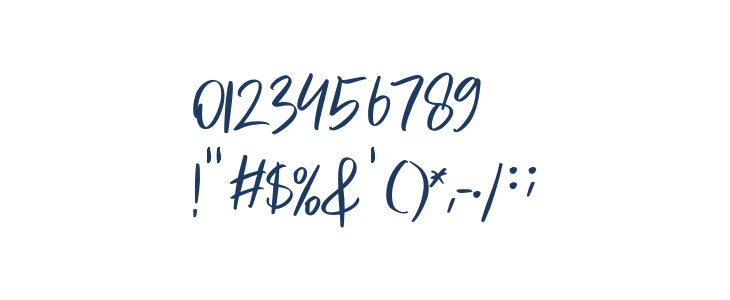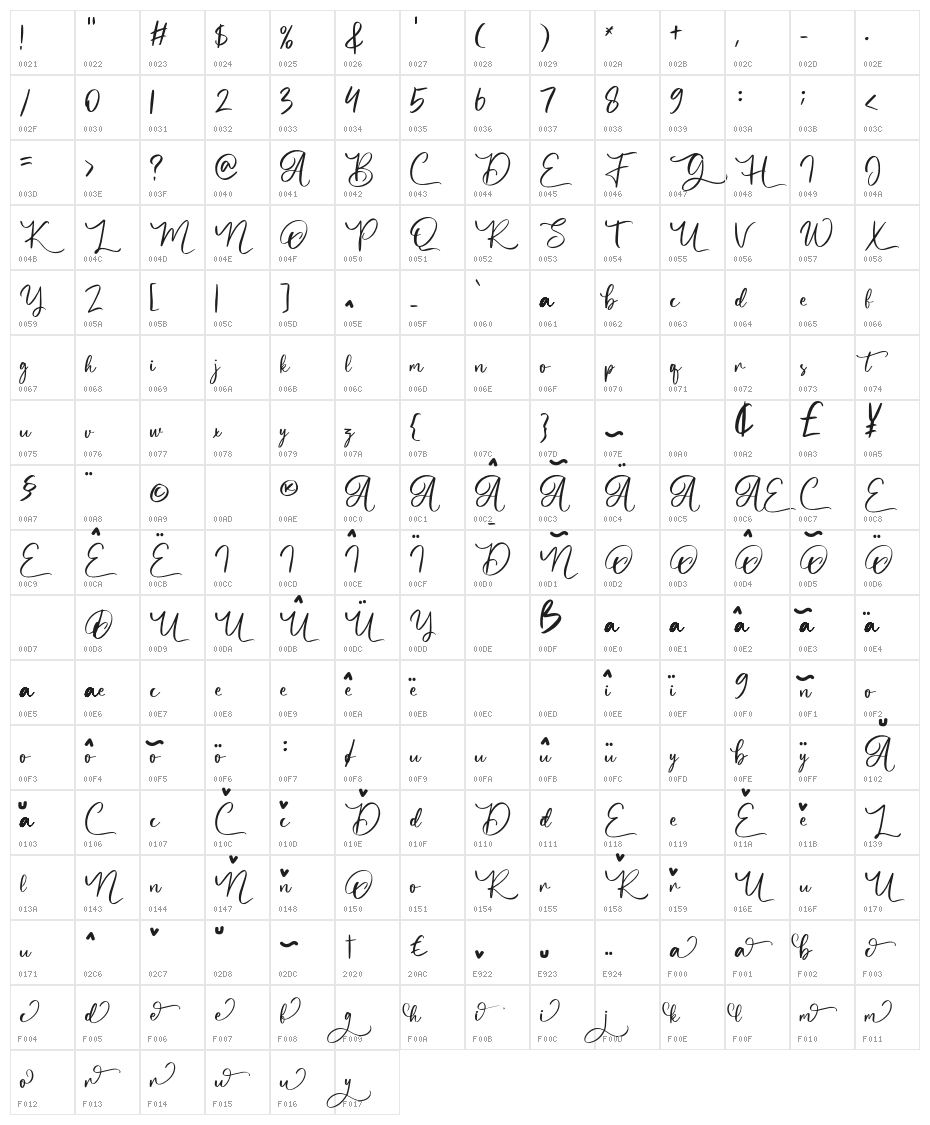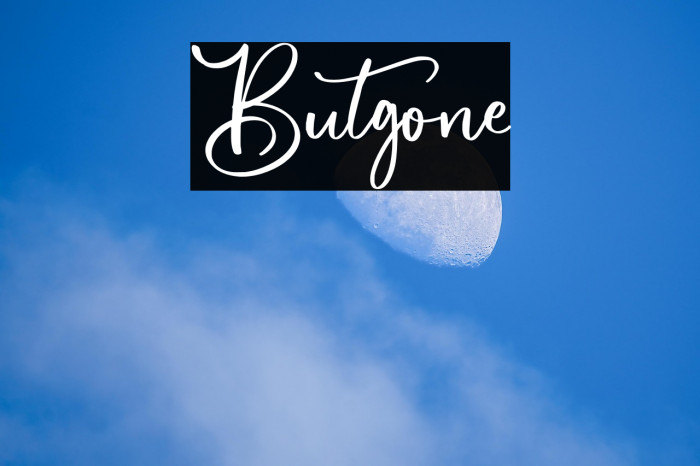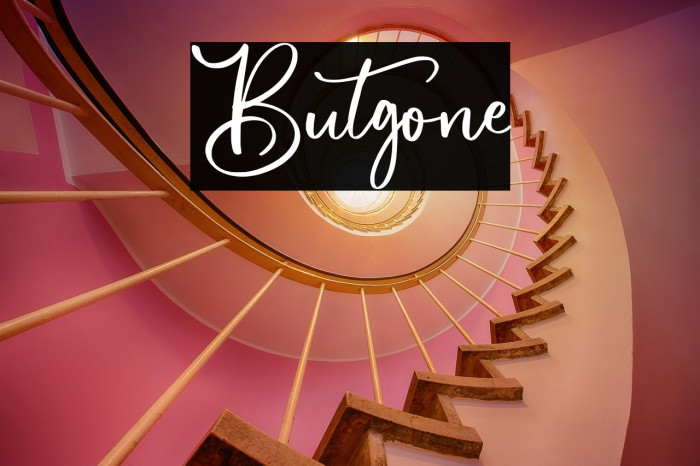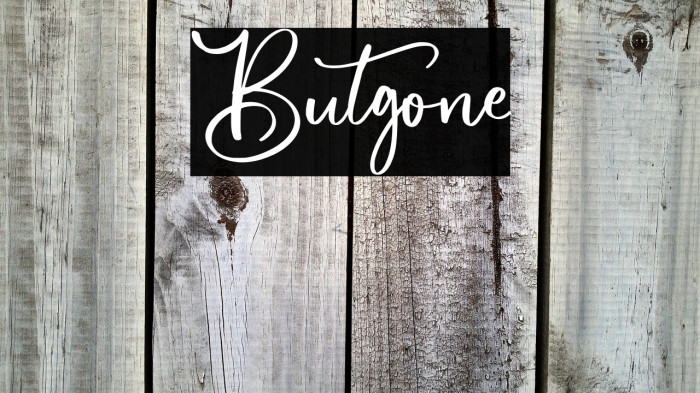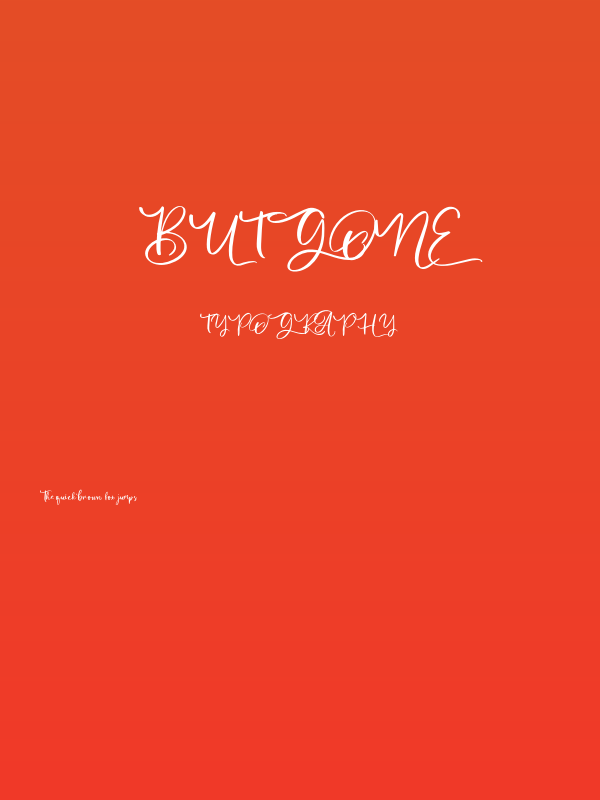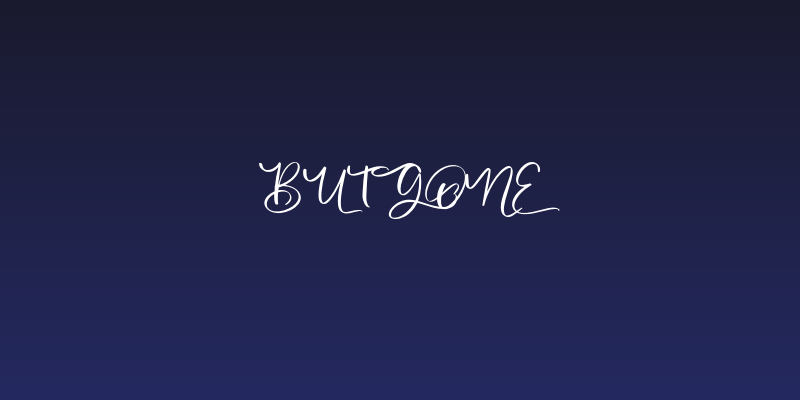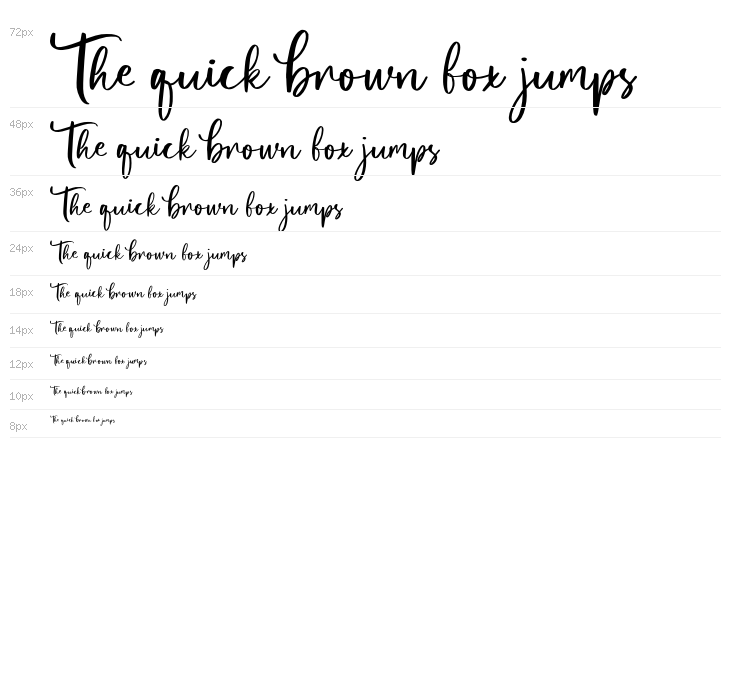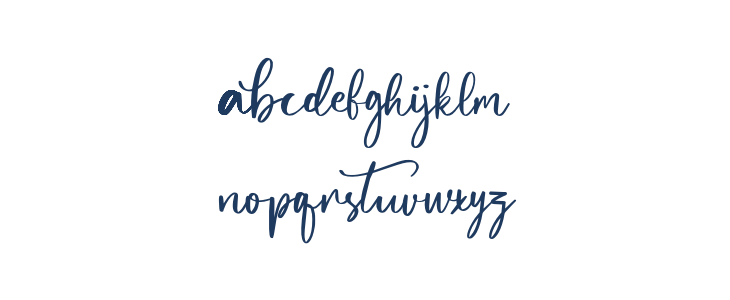
Butgone Font
Butgone Description
This font features an elegant and flowing script style, characterized by its smooth, cursive strokes and graceful curves. The uppercase letters are particularly ornate, with intricate loops and swirls that give the font a sophisticated and artistic appearance. The lowercase letters maintain a consistent flow, enhancing readability while retaining the decorative flair. Numbers and special characters are designed to match the overall aesthetic, ensuring a cohesive look across all text. This font is perfect for projects that require a touch of elegance and creativity.
| Use Case | Logos, Invitations, Decorative text |
| Proposed Projects | Ideal for wedding invitations, greeting cards, branding, and elegant logos. |